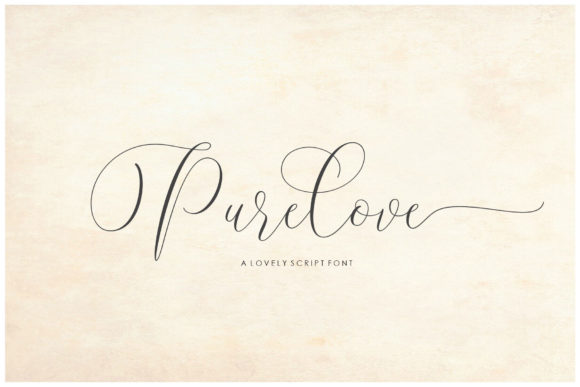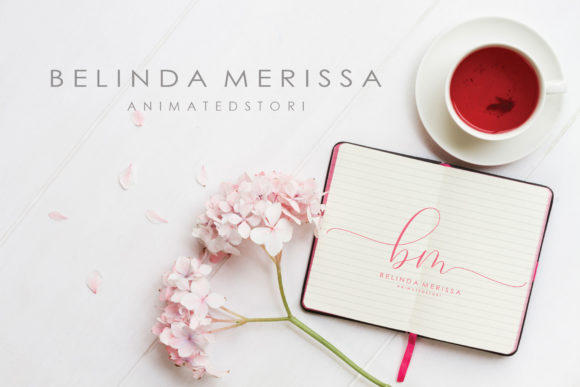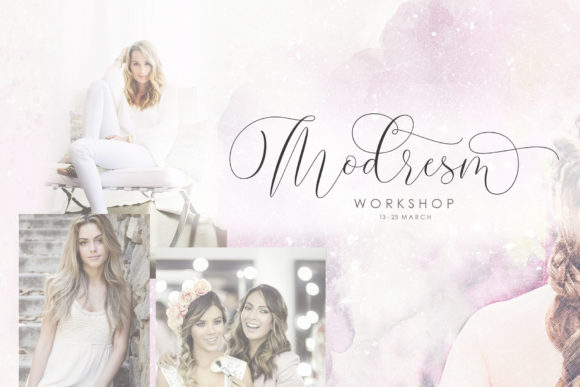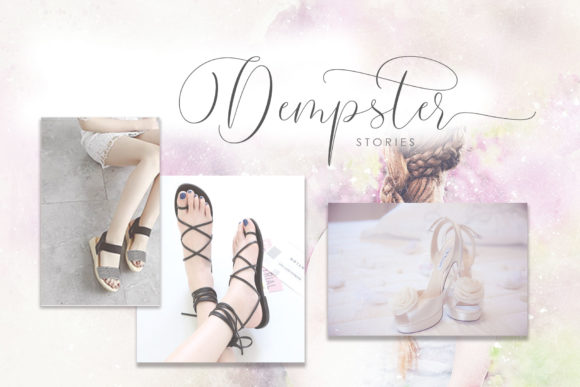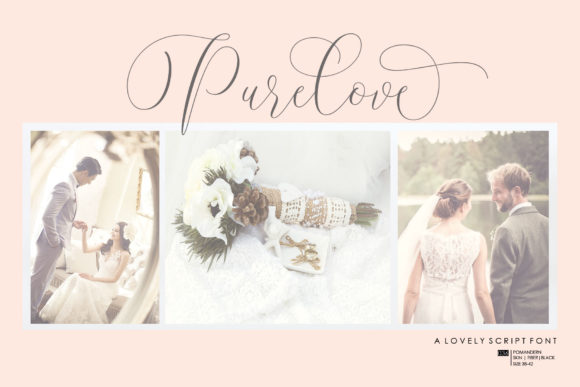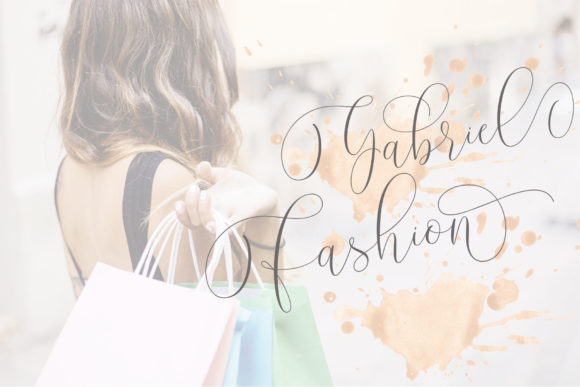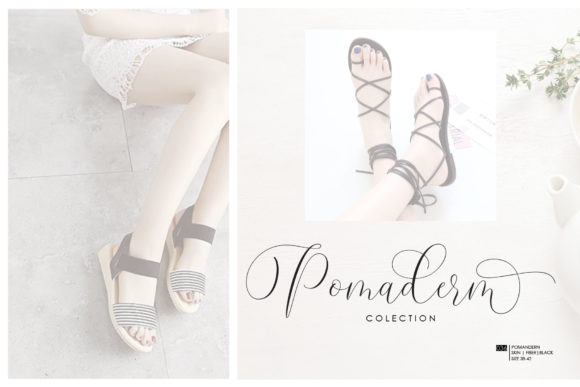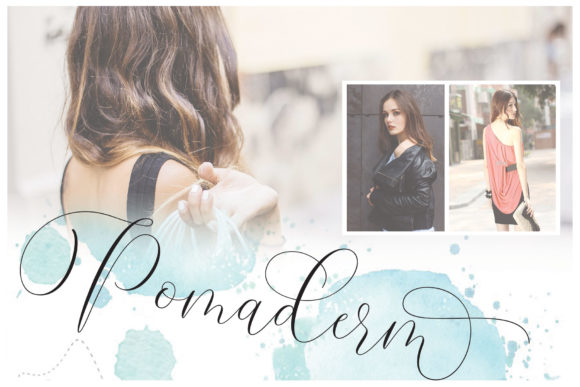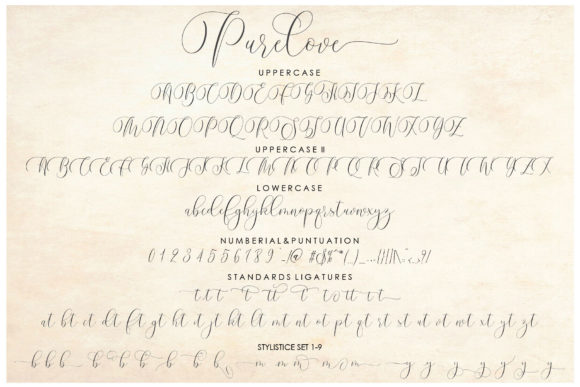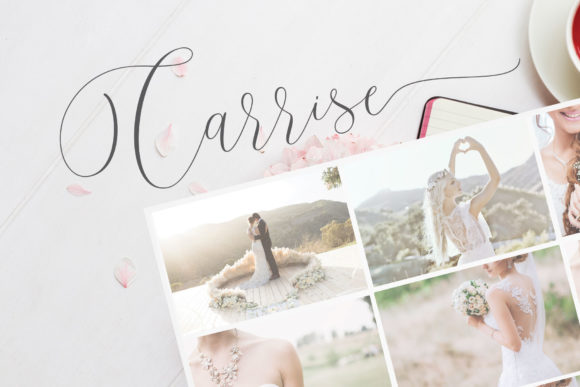
Purelove Font
About Purelove Font
Purelove Script is a very beautiful and interesting script, and comes with a perfect line for use for various purposes. Like titles, signatures, logos, correspondence, wedding invitations, letterheads, nameplate, labels, bulletins, posters, badges, Branding, Greeting Cards, etc.